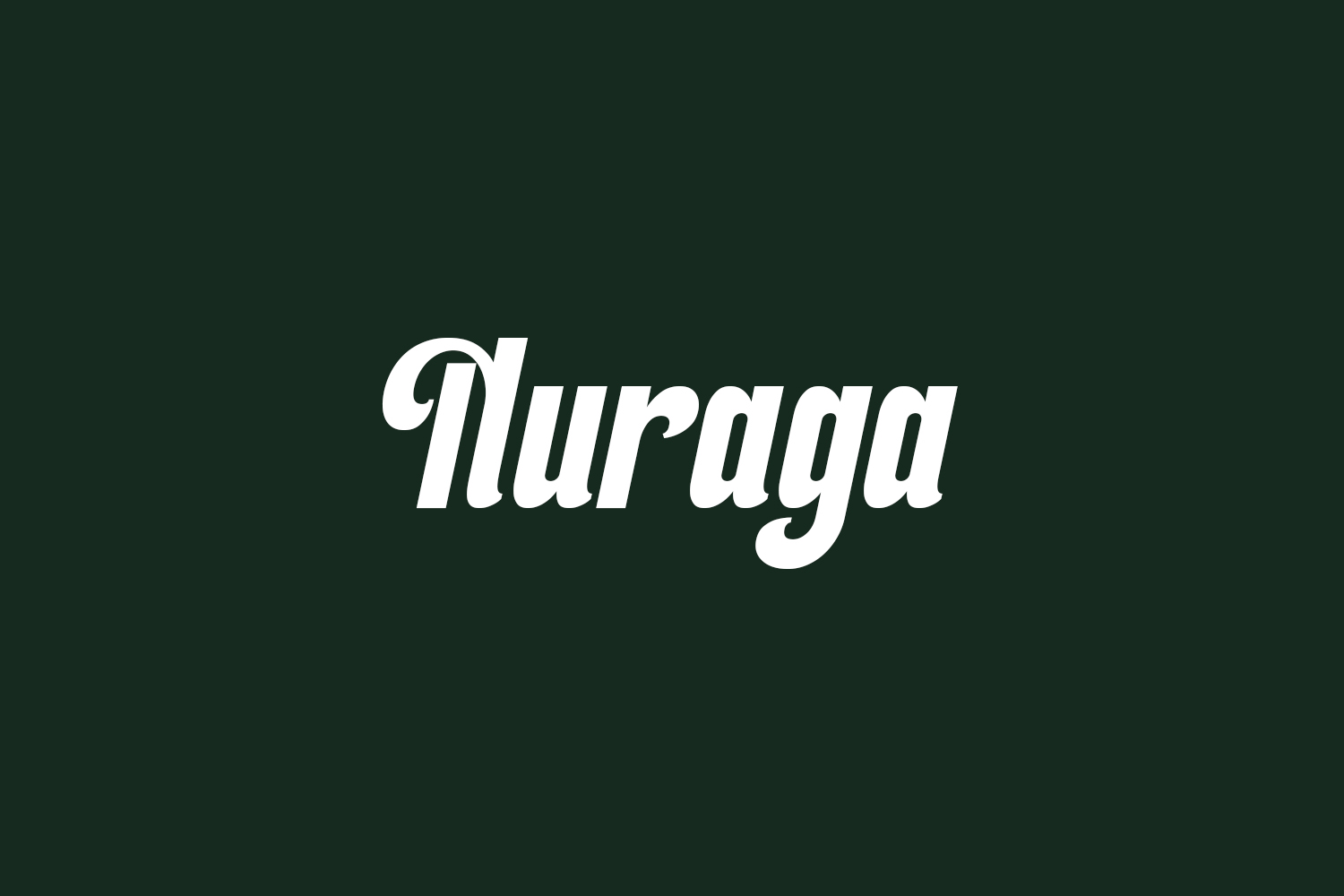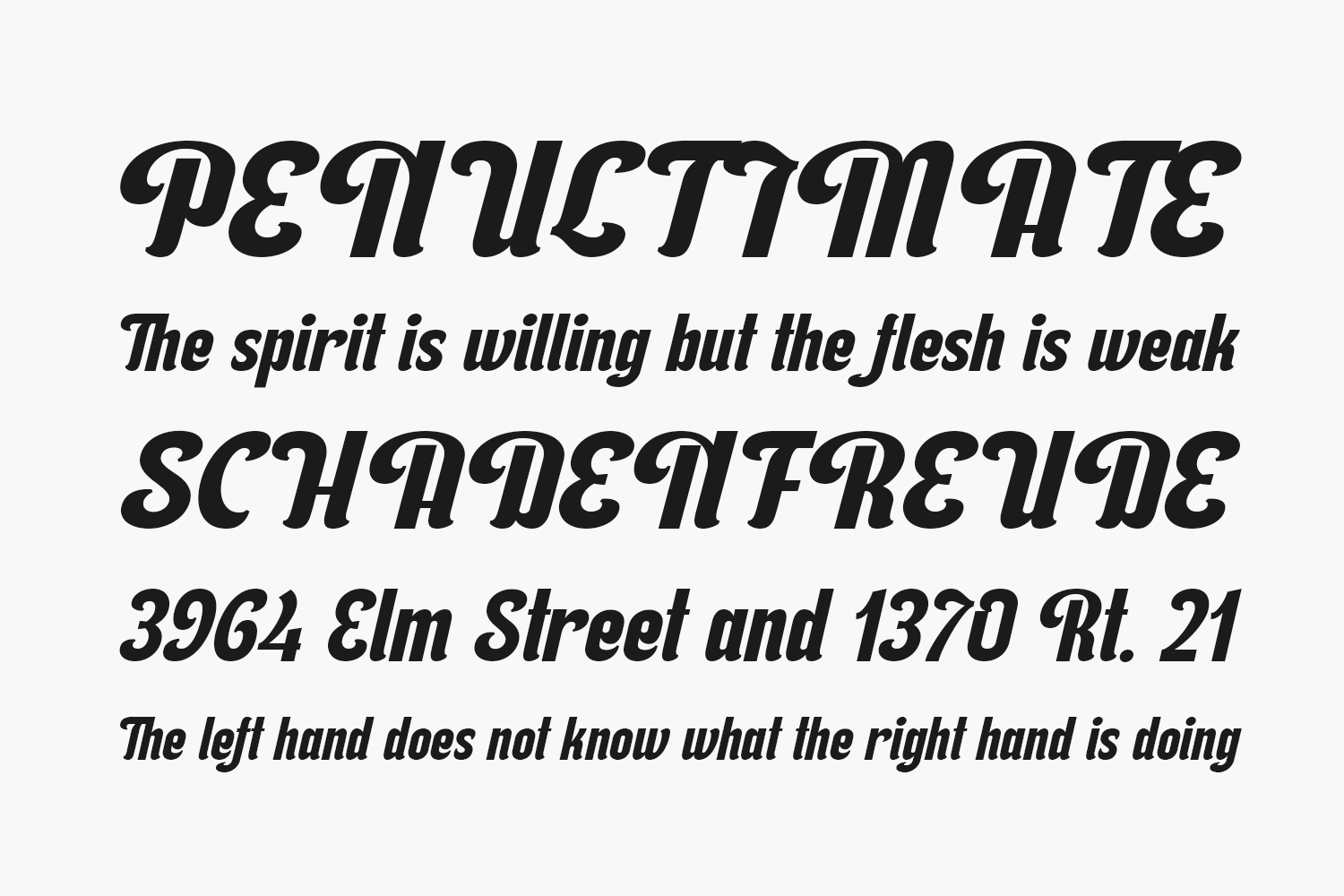
Nuraga Free Font is a gorgeous and bold display font, crafted to give your headlines and logotype projects a retro touch. This font reads as strong, confident, and dynamic and can add tons of nostalgic character to your designs. Nuraga Free Font was designed by Surotype and is free for personal use only. Please purchase the full version for commercial use.